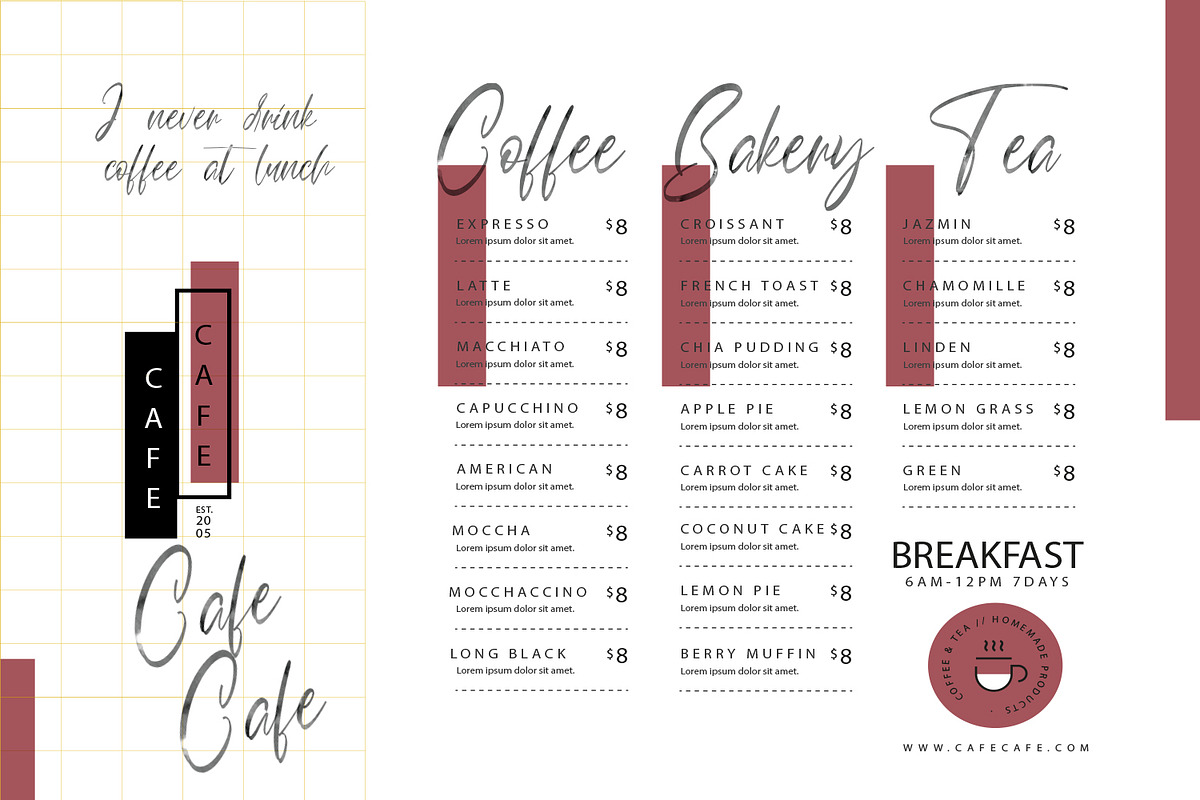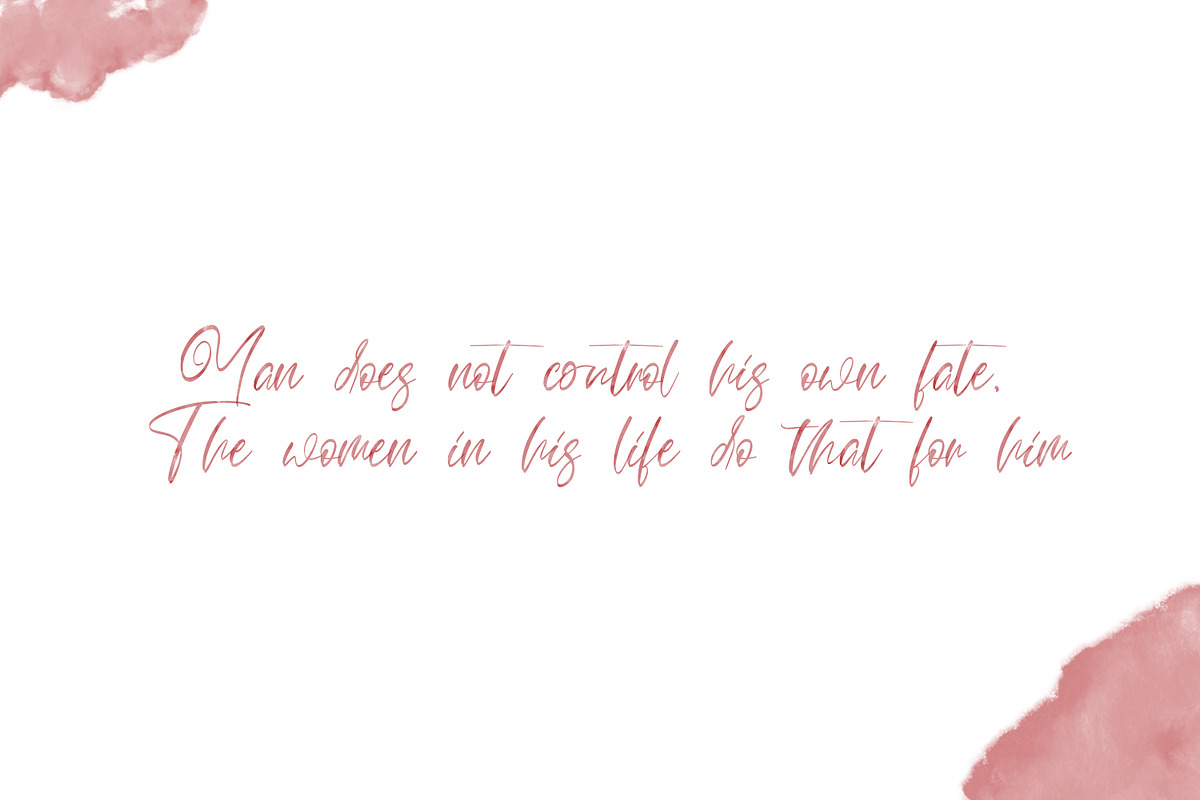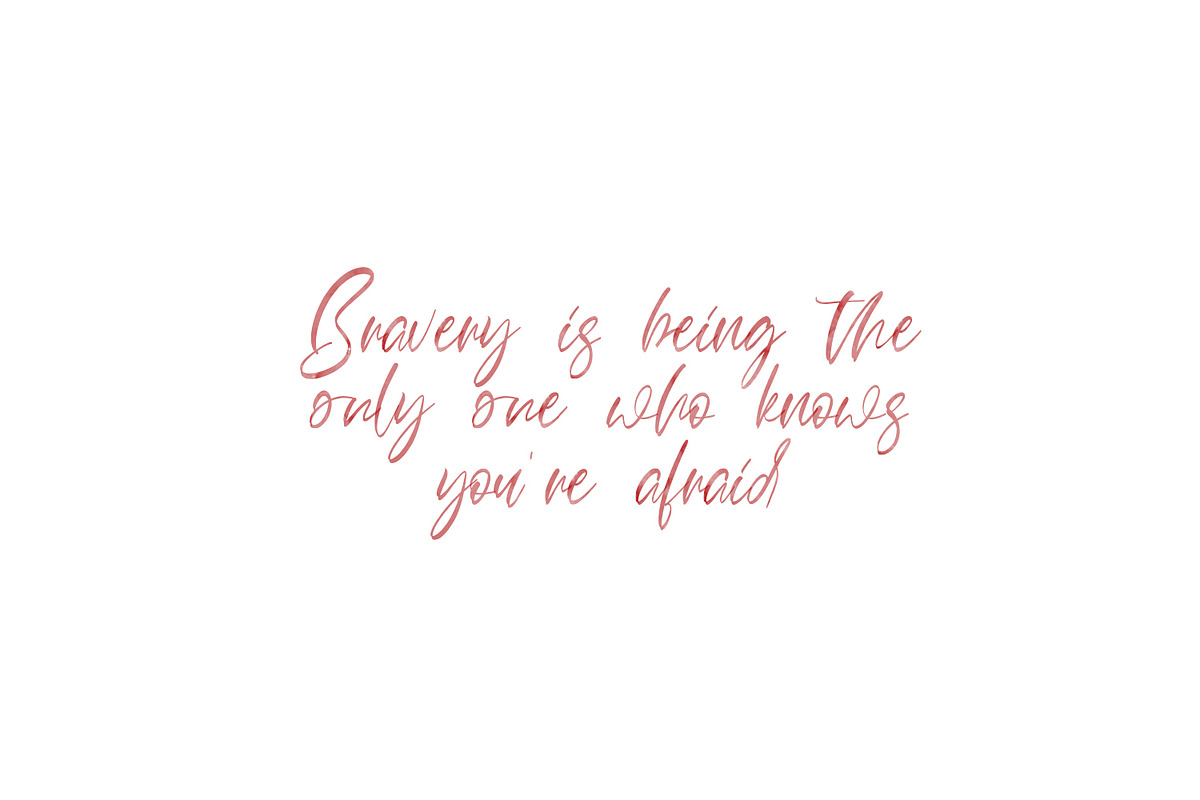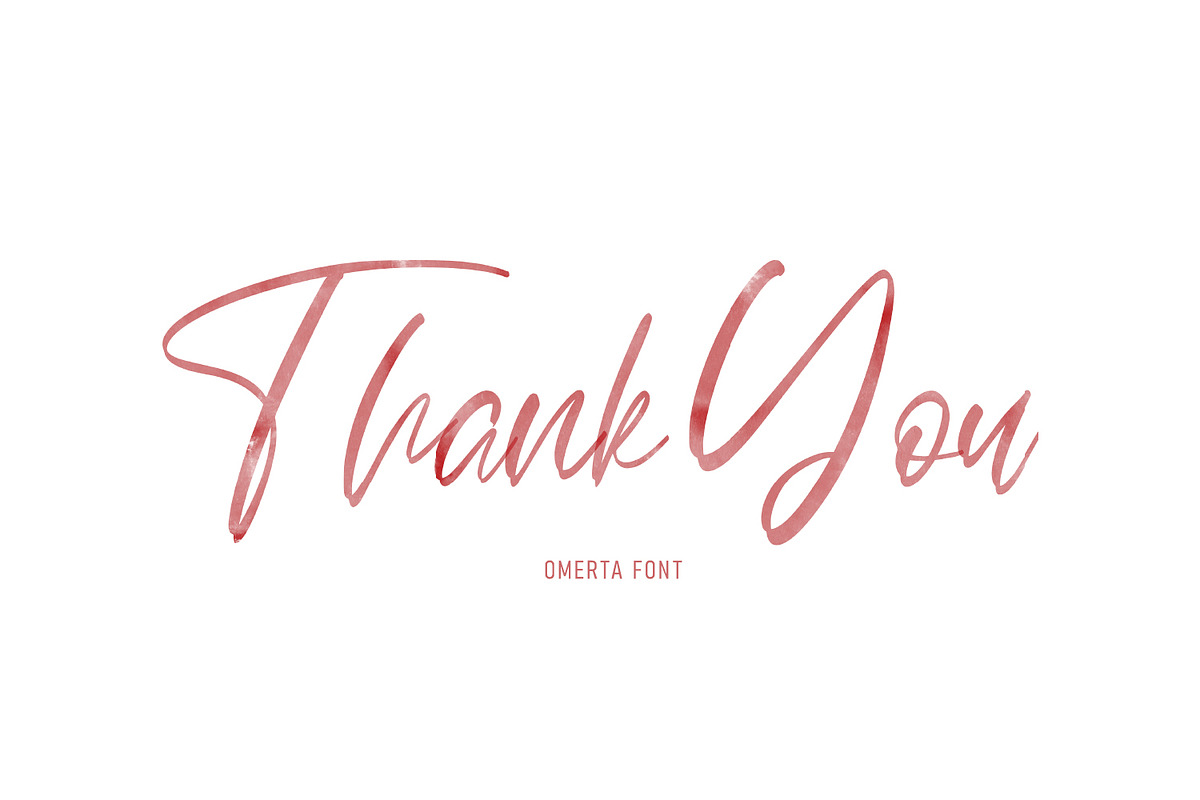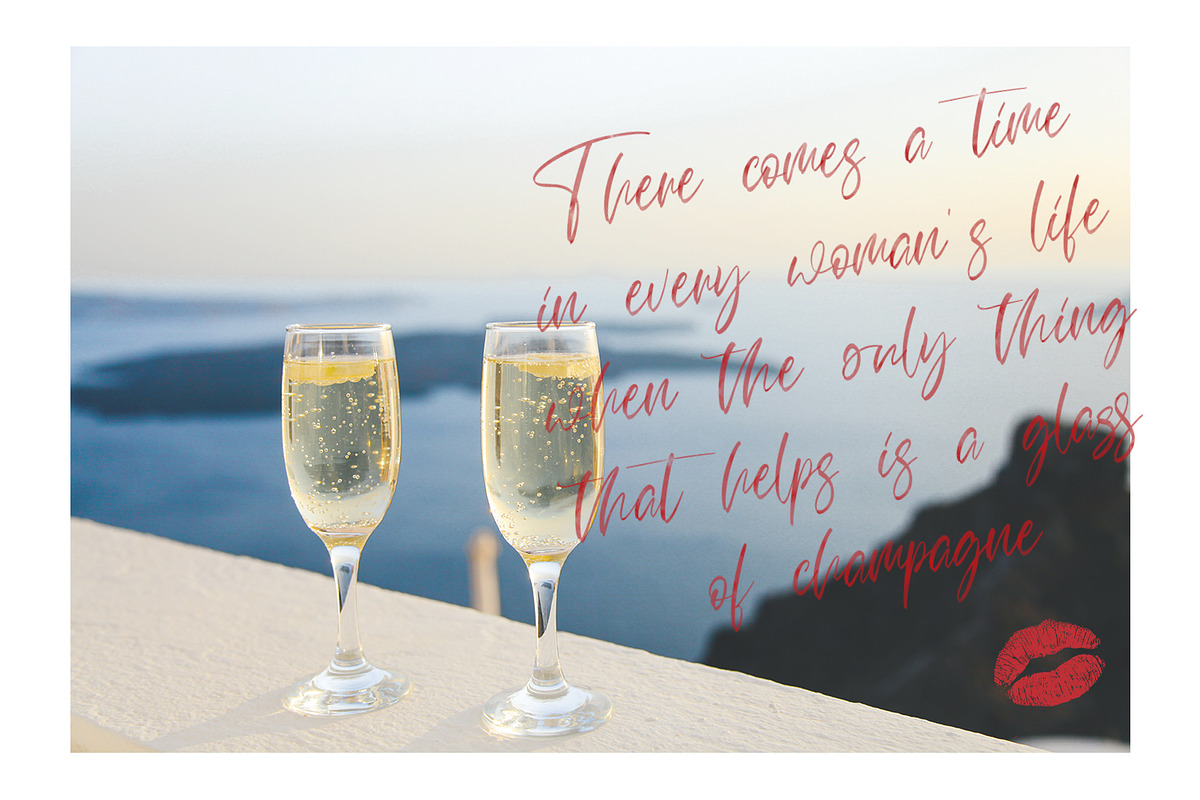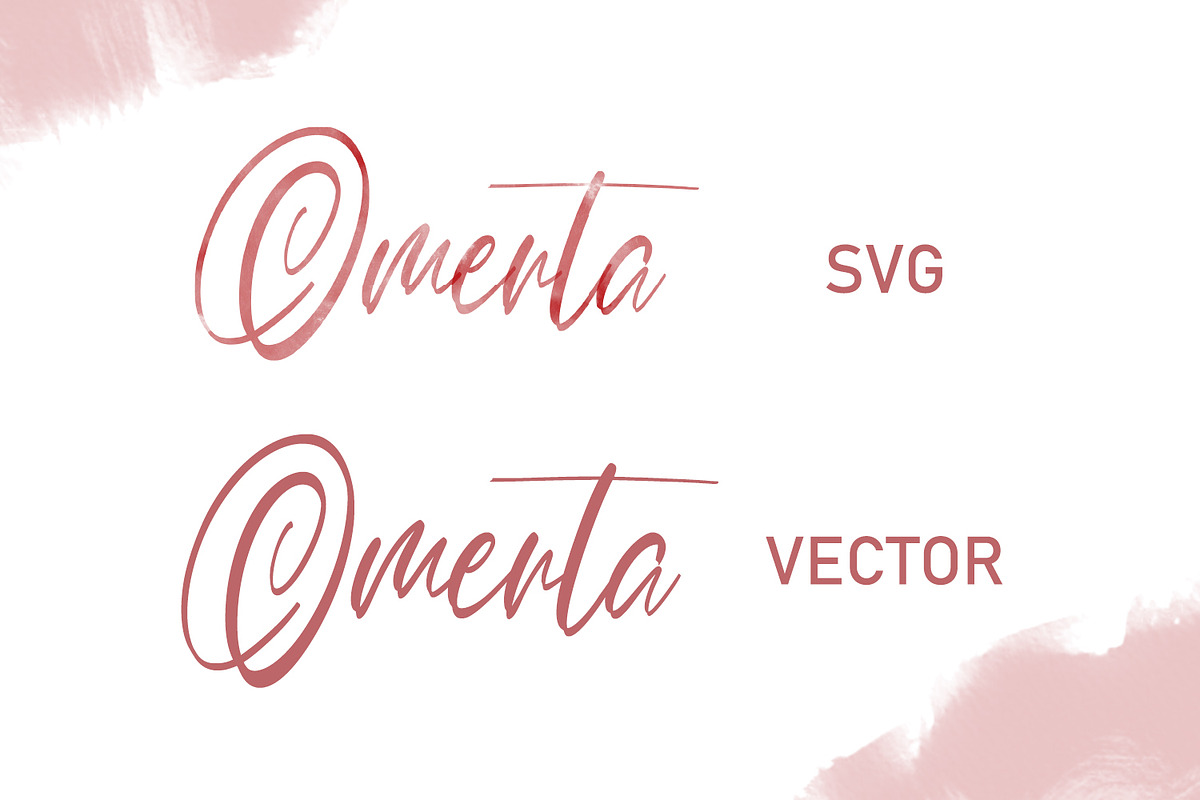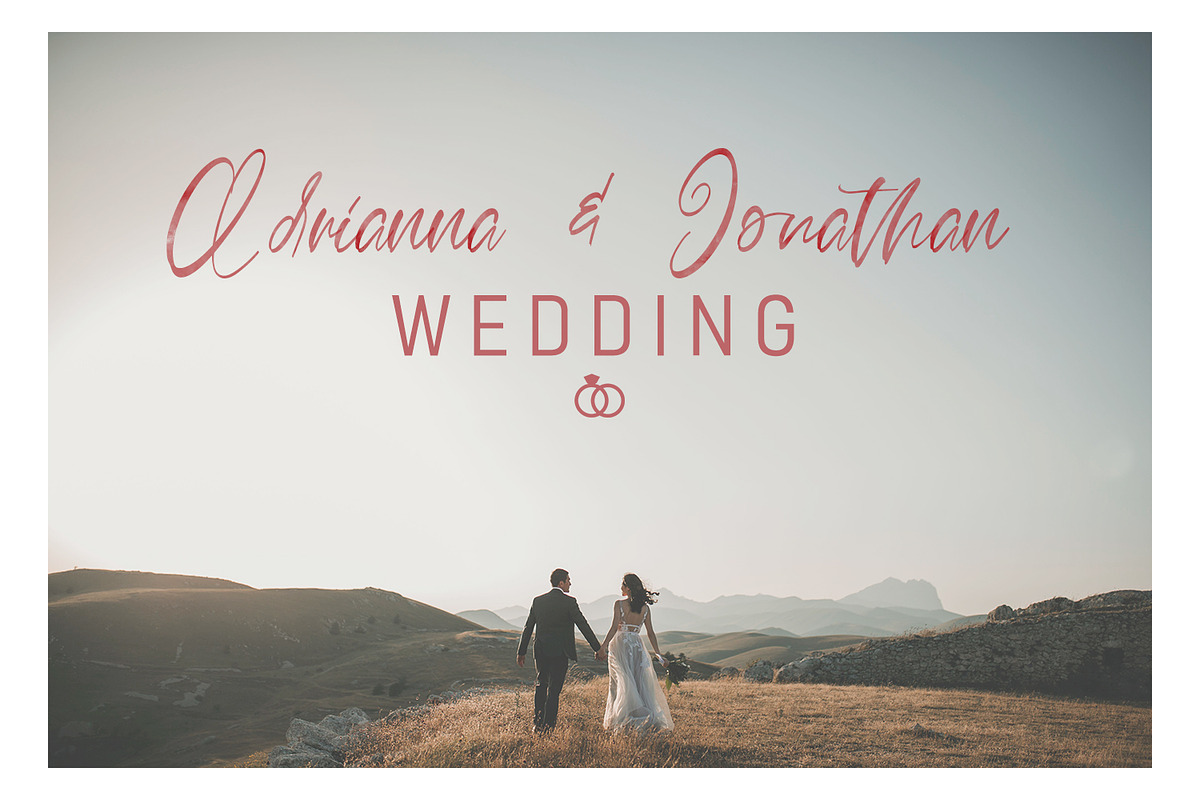
Omerta - Classy SVG Font
Introducing Omerta SVG Font, Classy Script SVG font which is very elegant and modern for you to use and your design interests be it for logos, branding names, posters, podcasts and so on. This is perfect for you all.
Omerta - Classy SVG Font by Arendxstudio fits naturally into Branding, posters, packaging, typography.